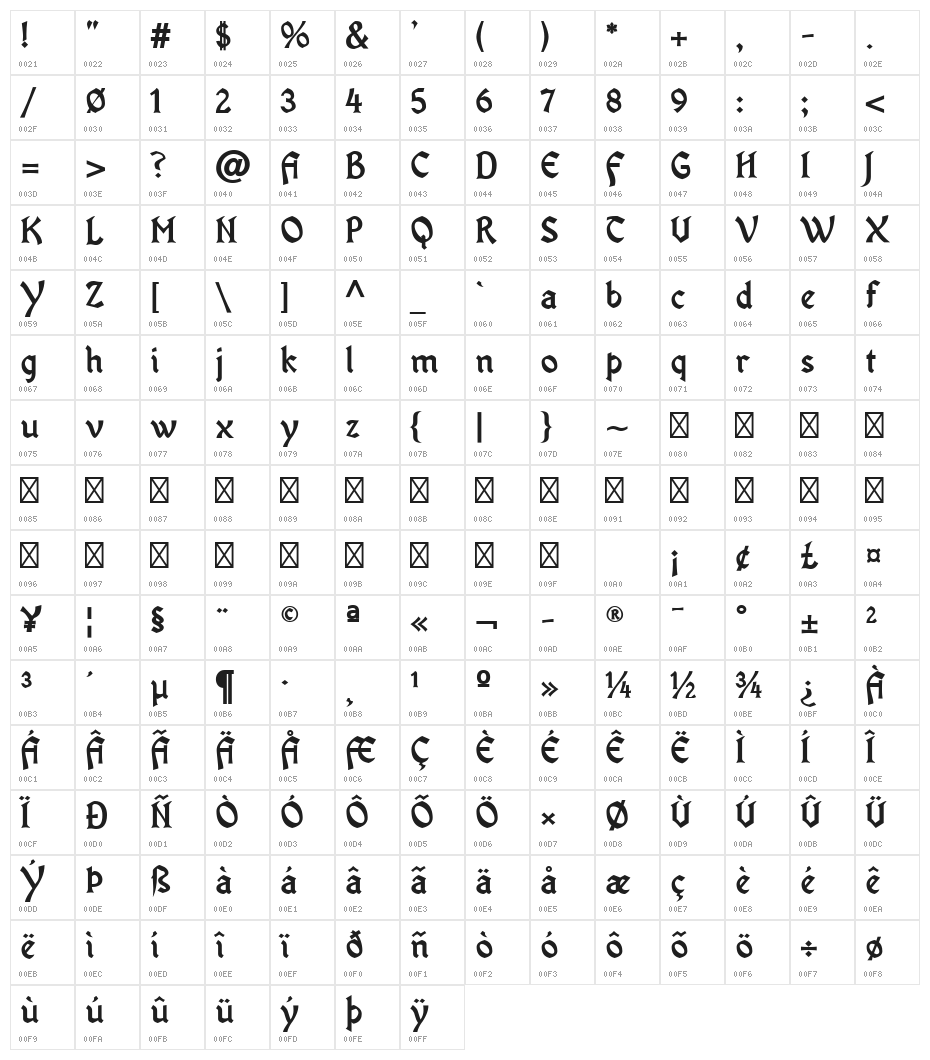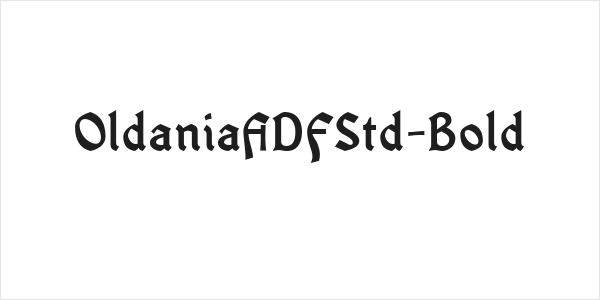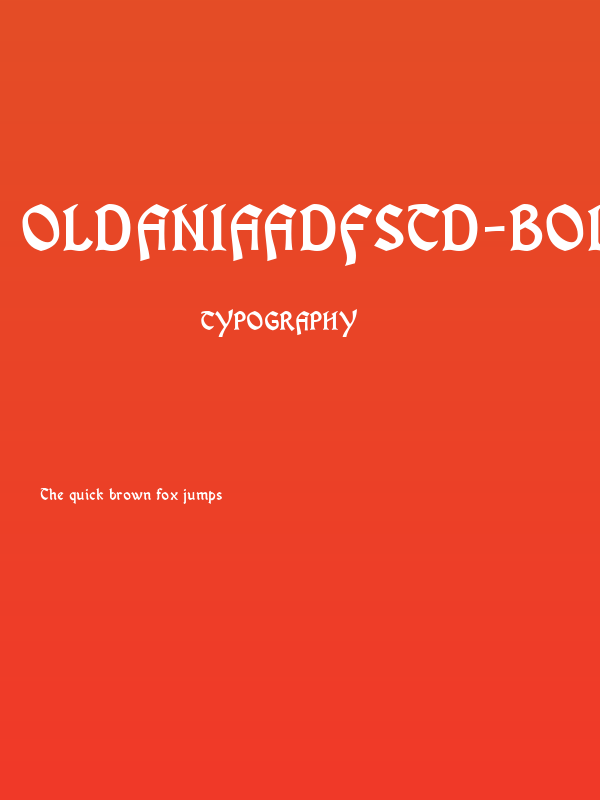
OldaniaADFStd-Bold Font
OldaniaADFStd-Bold Description
This font features a bold and striking design with a distinct medieval or gothic influence. The characters are characterized by sharp, angular lines and a strong presence, making them highly legible and impactful. The uppercase letters exhibit a unique blend of traditional serif elements with a modern twist, while the lowercase letters maintain a consistent style that complements the uppercase. The numerals are equally bold and maintain the font's overall aesthetic, ensuring uniformity across different text elements. Special characters are designed with the same attention to detail, providing a cohesive look throughout.
Proposed ProjectsIdeal for projects requiring a medieval or gothic theme, such as fantasy book covers, historical event posters, or themed branding materials.